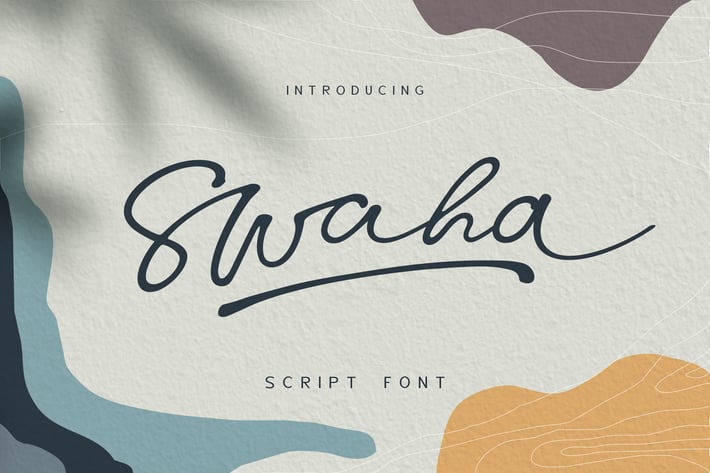
Swaha font
Swaha font is a very beautiful and unique Classy Font that comes with a very beautiful ligature surprise with different font characters so it is perfect for your design needs such as printed quotes, invitation cards, social media, product packaging, your website and more!
A-Z Character Set
Numerals & Punctuations (OpenType Standard)
Stylistic Alternates
Ligatures
* Swash